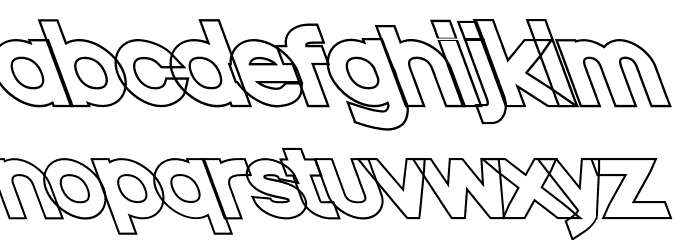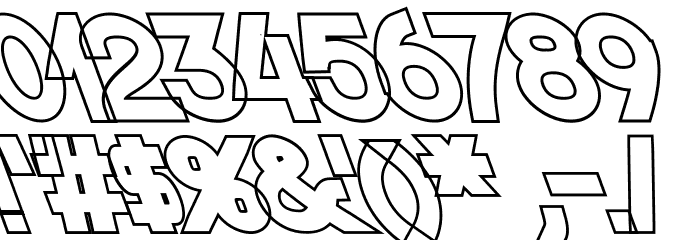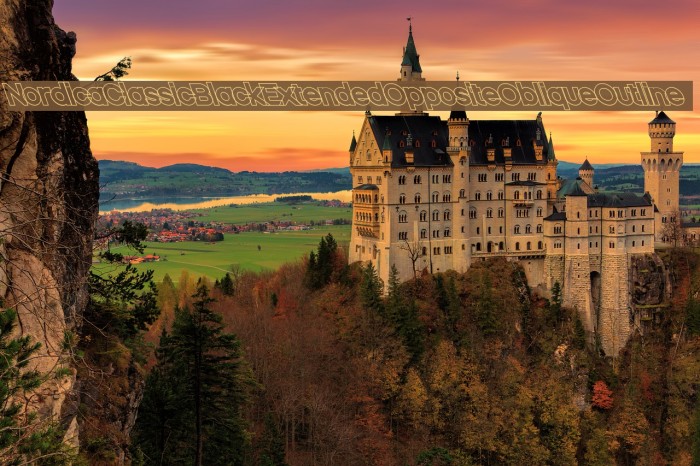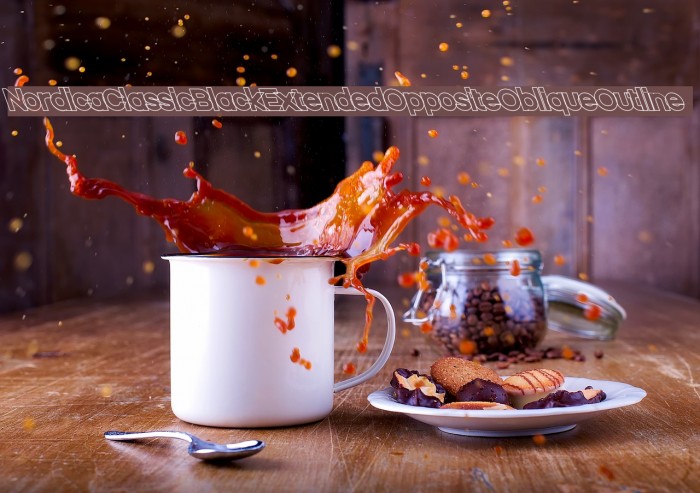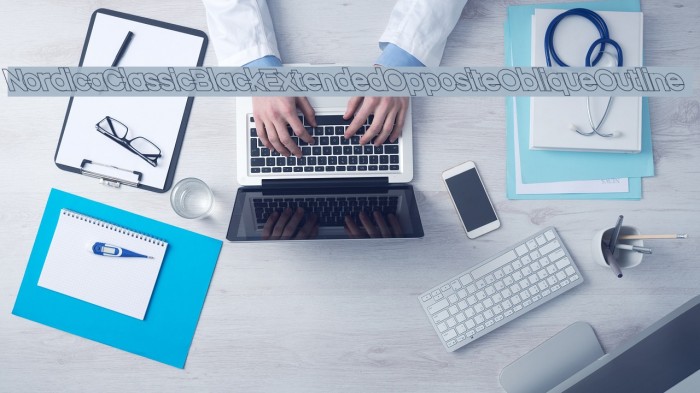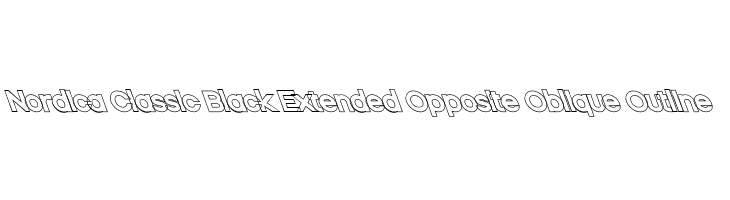
Nordica Classic Black Extended Opposite Oblique Outline Font
This font features a bold, extended outline style with a distinctive oblique slant, giving it a dynamic and modern appearance. The uppercase and lowercase letters maintain a consistent width, creating a uniform look across the alphabet. The numerals and special characters follow the same design principles, ensuring cohesion throughout. The outline effect adds a layer of depth, making it suitable for eye-catching designs. Its geometric structure and clean lines contribute to its contemporary feel, while the oblique angle introduces a sense of movement and energy.
Bold, extended outline font with an oblique slant for a modern, dynamic look.
- Proposed Projects: Ideal for headlines, posters, branding, and any project requiring a striking, modern typeface.
- Width: Expanded